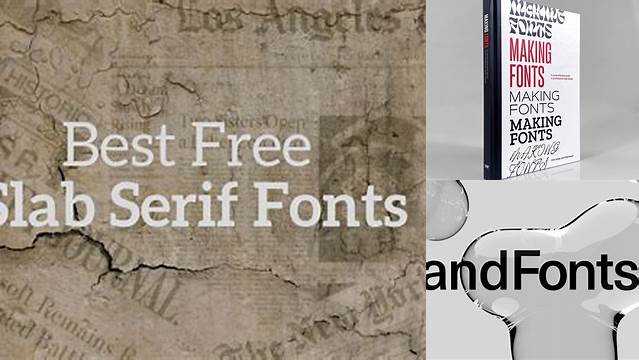
Free Fonts: Impact, Benefits, And How To Use Them
Introduction: Diving into the World of Free Fonts
Hey guys! Let's talk about something super cool and essential for all designers, content creators, and anyone who loves making things look awesome: free fonts. You know, those little gems you can snag without spending a dime? They're everywhere, and they have a massive impact on how we communicate visually. Fonts are more than just letters; they're the voice of your text, the personality of your brand, and the first impression you make on your audience. Choosing the right font can be the difference between a message that sings and one that falls flat. So, buckle up as we dive into the wonderful world of free fonts and explore how they're shaping the way we design and communicate. This article is going to be your ultimate guide, covering everything from the benefits and potential pitfalls of using free fonts to tips on finding the best ones and how to use them effectively. We’ll also touch on the legal side of things, ensuring you're not stepping on any toes when you use that killer free font you just discovered. Whether you're a seasoned pro or just starting out, understanding the impact of free fonts is crucial. We're going to break it all down in a way that's super easy to grasp, so you can start making the most of these fantastic resources today. Think of fonts as the clothes your words wear. A sharp, modern font can make your text look cutting-edge and professional, while a playful, whimsical font can add a touch of fun and creativity. The key is to match the font to the message and the audience. Free fonts open up a world of possibilities, allowing you to experiment with different styles and find the perfect fit for your project without breaking the bank.
The Allure of Free Fonts: Why They Matter
So, why are free fonts such a big deal? Let's be real, the most obvious reason is the price tag – or rather, the lack of one! For those just starting out, small businesses on a budget, or even seasoned designers looking to expand their toolkit, free fonts are a godsend. They allow you to access a vast library of typefaces without the financial commitment of purchasing commercial fonts. But the allure of free fonts goes beyond just the cost. They democratize design, making it possible for anyone to create visually appealing content. You don't need a huge budget to have access to a diverse range of fonts that can elevate your projects. This accessibility is particularly important for students, non-profits, and individuals who may not have the resources to invest in expensive fonts. Free fonts also foster creativity and experimentation. With a plethora of options available at no cost, you can afford to try out different styles and see what works best for your project. This can lead to unexpected discoveries and help you develop your unique design aesthetic. Moreover, the availability of free fonts has spurred a vibrant community of type designers and enthusiasts. Many talented designers generously share their creations for free, contributing to a rich and ever-growing collection of typefaces. This collaborative spirit benefits everyone, as it drives innovation and expands the possibilities of typography. However, it's important to remember that not all free fonts are created equal. While there are many high-quality free fonts available, there are also some that may be poorly designed or lack essential features. That's why it's crucial to be discerning and selective when choosing free fonts. We'll delve into how to evaluate the quality of free fonts later in this article, so you can be sure you're using the best possible typefaces for your projects.
Benefits of Using Free Fonts
Let's get into the nitty-gritty of why free fonts are such a fantastic resource. The benefits of using free fonts are numerous, and they impact everything from your budget to your creativity. One of the most significant advantages is, of course, the cost savings. Starting a new project or running a business involves a lot of expenses, and being able to save money on fonts can make a real difference. Free fonts allow you to allocate your resources to other crucial aspects of your work, such as marketing, development, or content creation. This is especially beneficial for startups and small businesses that need to be mindful of their spending.
Cost Savings and Budget-Friendly Design
Speaking of budget-friendly design, let's break down how much you can save by opting for free fonts. Commercial fonts can range from a few dollars to hundreds, depending on the typeface and licensing terms. If you're working on multiple projects or need a diverse range of fonts, the costs can quickly add up. Free fonts eliminate this financial barrier, allowing you to experiment with different styles without worrying about the price tag. Imagine you're designing a website, creating social media graphics, and putting together a marketing brochure. If you were to purchase commercial fonts for each of these projects, you could easily spend hundreds of dollars. With free fonts, you can achieve the same professional look without spending a dime. This cost savings can be particularly impactful for freelancers and independent designers who often work with limited budgets. By using free fonts strategically, you can maximize your profits and offer competitive pricing to your clients. But the cost savings aren't just about the money you save upfront. Using free fonts can also reduce your long-term expenses. Commercial font licenses often have restrictions on usage, such as the number of users or the types of projects you can use the font for. If you exceed these limits, you may need to purchase additional licenses, which can be costly. Free fonts, on the other hand, often come with more flexible licensing terms, allowing you to use them for a wider range of projects without incurring extra fees. This can provide significant peace of mind and save you from potential legal headaches down the road. In addition to the direct cost savings, using free fonts can also help you develop your design skills. By experimenting with different typefaces and seeing how they impact your designs, you can gain a better understanding of typography and learn how to choose the right font for each project. This knowledge is invaluable and can help you create more effective and visually appealing designs in the long run.
Variety and Accessibility: A World of Options at Your Fingertips
Beyond the financial benefits, variety and accessibility are major perks of the free font world. The sheer number of free fonts available is staggering, offering a typeface for virtually every style and purpose. Whether you're looking for a classic serif for a formal document, a modern sans-serif for a website, or a playful script for a creative project, you're likely to find a free font that fits the bill. This vast selection allows you to explore different typographic styles and find the perfect font to convey your message. One of the beautiful things about this variety is that it allows designers to really express the unique personality and tone of their projects. Imagine you're designing a logo for a children's brand. A playful, whimsical font would be far more suitable than a serious, formal one. With free fonts, you have access to a wide range of fun and quirky typefaces that can capture the essence of your brand. Or, perhaps you're creating a website for a luxury brand. In this case, you might opt for a sleek, elegant sans-serif font that conveys sophistication and class. The variety of free fonts ensures that you can find the perfect typeface to match your brand's identity and target audience. Another advantage of the accessibility of free fonts is that they make it easier to collaborate with others. If you're working on a project with a team, using free fonts ensures that everyone can access and use the same typefaces without having to purchase individual licenses. This simplifies the design process and prevents compatibility issues. Furthermore, the accessibility of free fonts empowers individuals and organizations with limited resources. Non-profits, community groups, and individuals starting their own projects can benefit greatly from the availability of free typefaces. It levels the playing field, allowing them to create professional-looking materials without breaking the bank. The accessibility of free fonts also promotes inclusivity in design. By providing a wide range of options, free fonts allow designers to cater to diverse audiences and create designs that are accessible to everyone. This is particularly important for projects that need to be translated into multiple languages, as free fonts often include a wider range of characters and glyphs than commercial fonts.
Fostering Creativity and Experimentation
Let's not forget how free fonts can really boost your creative juices! With so many options available at no cost, you're free to experiment with different styles and see what sparks your imagination. It's like having a giant box of art supplies without the pressure of using them perfectly. This freedom can lead to some truly amazing design discoveries. When you're not worried about the cost of a font, you're more likely to take risks and try something new. Maybe you'll combine a bold, modern sans-serif with a delicate script font for a striking contrast. Or perhaps you'll use a vintage-inspired typeface to add a touch of nostalgia to your project. The possibilities are endless. Experimentation is key to growth as a designer. By trying out different fonts, you'll develop a better understanding of typography and learn how to create visually compelling designs. You'll also discover your own personal style and preferences, which will help you stand out from the crowd. Free fonts also encourage you to think outside the box. When you're not limited by a small selection of fonts, you're more likely to explore unconventional typefaces and find unique ways to use them. This can lead to innovative designs that capture attention and leave a lasting impression. Think about it: if you had to pay for every font you tried, you might stick with the same old reliable typefaces you're comfortable with. But with free fonts, you can venture into uncharted territory and discover hidden gems that you might never have considered otherwise. This sense of adventure is essential for creativity and can help you push the boundaries of your design work. Moreover, free fonts can be a great source of inspiration. Browsing through different free font websites and collections can expose you to new styles and trends. You might stumble upon a typeface that perfectly captures the mood you're trying to create, or you might find a font that inspires a whole new design concept. The constant influx of new free fonts keeps things fresh and exciting, ensuring that your creativity never stagnates.
Potential Pitfalls and How to Avoid Them
Now, let's be real – while free fonts are fantastic, they're not without their potential pitfalls. It's like anything else in life; you've got to know the downsides to make the most of the upsides. We're going to talk about some of the common issues you might encounter when using free fonts and, more importantly, how to steer clear of them. Think of this as your guide to navigating the free font landscape safely and effectively. One of the biggest concerns is font quality. Not all free fonts are created equal, and some may be poorly designed or lack essential features. This can lead to problems with readability, rendering issues, and an overall unprofessional look. Another potential pitfall is licensing restrictions. While free fonts are free to download and use, they may come with specific terms and conditions that you need to be aware of. Using a font in a way that violates its license can lead to legal trouble, so it's crucial to understand the licensing terms before you start using a free font. We'll also discuss the issue of overused fonts. Some free fonts are so popular that they're used everywhere, which can make your designs look generic and uninspired. Finding unique and high-quality free fonts requires a bit of effort, but it's well worth it to create designs that stand out. So, let's dive into these potential pitfalls and learn how to avoid them, ensuring that you can use free fonts with confidence and create amazing designs.
Quality Concerns: Evaluating Free Fonts
When diving into the world of free fonts, one of the first things you need to consider is quality. Not every font that's free is a good font, guys. Some might have design flaws, rendering issues, or just look plain amateurish. It's super important to be discerning and evaluate a font carefully before you use it in your project. Think of it like this: you wouldn't wear a ripped or stained shirt to a job interview, right? Similarly, you don't want to use a poorly designed font that could undermine the professionalism of your work. So, how do you evaluate the quality of a free font? Let's break it down. First, check for consistency. Are the letterforms well-balanced and harmonious? Do the uppercase and lowercase letters complement each other? Are the spacing and kerning (the space between letters) consistent throughout the font? Inconsistencies can make a font look jarring and unprofessional. Next, consider readability. Is the font easy to read in different sizes and contexts? A font might look great in a large headline, but it could become illegible in body text. Test the font in various sizes and weights to make sure it's readable. Another important factor is completeness. Does the font include all the characters you need, such as punctuation marks, symbols, and accented characters? If you're working on a project that requires specific characters, make sure the font supports them. You should also look for technical issues. Does the font render properly on different devices and browsers? Are there any glitches or distortions when you use the font in different software programs? Technical issues can be frustrating and time-consuming to fix, so it's best to avoid fonts that have them. Finally, trust your gut. Does the font look and feel right for your project? Does it convey the message and tone you're trying to achieve? If a font doesn't feel like a good fit, it probably isn't. Evaluating the quality of free fonts takes time and effort, but it's an essential step in the design process. By being selective and choosing high-quality typefaces, you can create professional-looking designs that stand out from the crowd.
Licensing and Usage Rights: Understanding the Fine Print
Okay, guys, let's talk about something that might seem a little dry but is super important: licensing and usage rights for free fonts. It's like the fine print you usually skip over, but trust me, you need to pay attention here. Using a font without understanding its license can land you in hot water, and nobody wants that. So, what's the deal with font licenses? Basically, a font license is a legal agreement that outlines how you can use a particular font. It specifies things like whether you can use the font for commercial purposes, whether you can embed it in a website or app, and whether you can modify it. Free fonts, like commercial fonts, come with licenses, and these licenses can vary widely. Some free fonts have very permissive licenses that allow you to use them for just about anything, while others have more restrictive terms. It's crucial to read the license agreement carefully before you start using a free font. Where do you find the license agreement? It's usually included in a text file or PDF document that comes with the font files. If you downloaded the font from a reputable website, the license information should be readily available. If you can't find the license agreement, it's best to err on the side of caution and contact the font designer or the website where you downloaded the font to ask for clarification. So, what are some common types of font licenses you might encounter? One common type is the Open Font License (OFL), which is a very permissive license that allows you to use the font for commercial and non-commercial purposes, modify it, and even redistribute it. However, the OFL usually requires you to include the original copyright notice and license agreement with the font files. Another type of license is the Creative Commons license, which comes in several variations. Some Creative Commons licenses allow commercial use, while others are limited to non-commercial purposes. It's important to check the specific terms of the Creative Commons license before using a font. Some free fonts may have custom licenses created by the font designer. These licenses can have a wide range of restrictions, so it's essential to read them carefully. For example, a custom license might prohibit you from using the font in certain types of projects, such as logos or branding materials. To avoid any legal issues, always read and understand the license agreement for every free font you use. If you're unsure about something, don't hesitate to ask for clarification. It's better to be safe than sorry.
Overused Fonts: Standing Out from the Crowd
Alright, let's talk about a sneaky little pitfall that can make your designs feel a bit…meh. We're talking about overused fonts. You know, those free fonts that are so popular they're practically everywhere? Using them isn't necessarily bad, but it can make your work blend in rather than stand out. Think of it like wearing the same outfit as everyone else at a party – you might look nice, but you won't exactly turn heads. So, how do you avoid the overused font trap and keep your designs fresh and unique? First, let's acknowledge why some fonts become so popular. Often, it's because they're well-designed, versatile, and easy to read. But their very popularity can be their downfall. When a font is used on countless websites, logos, and marketing materials, it starts to lose its impact. It becomes familiar, even invisible, to the viewer. So, what's the solution? The key is to dig a little deeper and explore the less-traveled corners of the free font world. There are tons of amazing free fonts out there that haven't been discovered by the masses yet. Finding these hidden gems can give your designs a unique edge. One way to find less common fonts is to browse niche font websites and foundries. Instead of sticking to the big, well-known free font sites, venture out to smaller sites that specialize in specific styles or genres of fonts. You might discover a quirky hand-drawn font, a retro-inspired typeface, or a bold display font that you won't find anywhere else. Another strategy is to look for fonts created by independent designers. Many talented designers offer their fonts for free as a way to showcase their work and build their portfolio. By using these fonts, you're not only getting a unique typeface, but you're also supporting independent artists. You can find independent font designers on platforms like Behance, Dribbble, and Creative Market. When you find a font you like, take the time to experiment with it. Try using it in different sizes, weights, and contexts to see how it performs. You might discover unexpected ways to use a font that make it feel fresh and original. And don't be afraid to combine different fonts. Pairing an overused font with a less common one can create a unique and eye-catching look. Just make sure the fonts complement each other and work well together. Finally, trust your instincts. If a font feels overused to you, it probably is. Choose a different font that feels more unique and aligns with your design goals. Standing out from the crowd requires effort and a willingness to explore, but it's well worth it to create designs that are memorable and impactful.
Finding the Best Free Fonts: Resources and Tips
Okay, so we've talked about the benefits and the potential pitfalls, but now comes the fun part: finding the best free fonts! It's like going on a treasure hunt, but instead of gold, you're searching for typographic gold. There are so many amazing free fonts out there just waiting to be discovered, and we're going to give you the tools and tips you need to find them. We'll explore some fantastic resources for free fonts, from well-known websites to hidden gems, and we'll also share some pro tips for evaluating fonts and making sure they're a good fit for your project. Think of this section as your map and compass for navigating the free font landscape. We'll help you avoid the dead ends and lead you to the best typographic treasures. Whether you're looking for a classic serif, a modern sans-serif, or a quirky display font, we've got you covered. So, let's dive in and start the hunt for the perfect free fonts! Remember, the best font is the one that perfectly captures the tone and message of your project, so it's worth taking the time to find the right fit. We'll help you develop your eye for typography and learn how to choose fonts that will make your designs shine. Get ready to expand your font library and unleash your creative potential!
Top Resources for Free Fonts
Let's start by uncovering some of the top resources for free fonts. The internet is a vast ocean of typefaces, but knowing where to look can save you a ton of time and effort. We're going to highlight some of the best websites and platforms for finding high-quality free fonts, so you can build your font library with confidence. Think of these resources as your go-to spots for all things typography. First up, we have the Google Fonts library. This is a massive collection of open-source fonts that are free to use for commercial and non-commercial purposes. Google Fonts is a fantastic resource for web fonts, as they're designed to render beautifully on screens. Plus, they're super easy to embed on your website using Google's free font API. With hundreds of fonts to choose from, you're sure to find something that fits your project. Another great resource is Font Squirrel. This website curates a selection of free fonts that are licensed for commercial use. Font Squirrel is known for its high-quality fonts and its easy-to-use interface. You can browse fonts by category, style, or designer, and you can even test fonts out in your browser before you download them. If you're looking for a more curated selection of free fonts, check out MyFonts Free Fonts. MyFonts is a popular marketplace for commercial fonts, but they also offer a selection of free fonts that are updated regularly. These free fonts are often promotional offerings from foundries, so you can find some real gems here. For a more artistic and experimental selection of free fonts, head over to Behance and Dribbble. These platforms are home to a vibrant community of designers who often share their fonts for free. You can find some truly unique and creative typefaces on these sites, but be sure to check the licensing terms before you use them. Another often-overlooked resource is individual font foundries. Many independent type designers and foundries offer free fonts as a way to promote their work. Check out the websites of your favorite foundries to see if they have any free offerings. Finally, don't forget about design bundles and freebie websites. These sites often offer free fonts as part of larger design packages or as limited-time promotions. Keep an eye out for these deals, as they can be a great way to expand your font library. With so many resources available, finding the perfect free font for your project is easier than ever. Just remember to check the licensing terms and evaluate the quality of the font before you use it.
Tips for Choosing the Right Free Font
Now that you know where to find free fonts, let's talk about how to choose the right free font for your project. With so many options available, it can be overwhelming to narrow down your choices. But don't worry, we've got some tips to help you make the best decision. Think of this as your font-selection cheat sheet. First and foremost, consider your project's purpose and tone. What message are you trying to convey? What kind of feeling do you want to evoke? The font you choose should align with these goals. A formal project might call for a classic serif font, while a playful project might benefit from a whimsical script font. If you're designing a logo or branding materials, think about your brand's identity. Your font should reflect your brand's personality and values. A modern, tech-focused brand might choose a sleek sans-serif font, while a traditional brand might opt for a more ornate serif font. Readability is crucial, especially for body text. Choose a font that is easy to read in different sizes and contexts. Avoid fonts with overly decorative or complex letterforms, as they can be difficult to read. Consider the context in which your font will be used. Will it be used on a website, in print, or in a mobile app? Some fonts are better suited for certain mediums than others. For example, a font that looks great in print might not render well on a screen. Pay attention to kerning and spacing. The space between letters can have a big impact on readability. Make sure the font you choose has consistent and well-balanced kerning and spacing. Don't be afraid to experiment. Try out different fonts and see what works best for your project. You might be surprised at what you discover. Limit your font choices. Using too many different fonts in a single project can create a cluttered and unprofessional look. Stick to two or three fonts that complement each other. Test your fonts. Before you finalize your font choices, test them out in your design. See how they look in different sizes, weights, and colors. Get feedback from others and make sure the fonts are working well for your project. Finally, trust your gut. If a font feels right, it probably is. Choose fonts that you love and that inspire you. By following these tips, you can choose the perfect free fonts for your project and create designs that are both beautiful and effective.
Legal Considerations: Font Licensing and Usage Rights
Alright, let's dive into the legal considerations when using free fonts. This might not be the most exciting topic, but it's super important to understand the rules of the road when it comes to font licensing and usage rights. Think of this as the legal 101 of fonts – essential knowledge for any designer or content creator. We've touched on this briefly before, but let's really break it down so you can avoid any potential legal headaches. Font licenses are basically contracts that outline how you can use a particular font. They specify things like whether you can use the font for commercial projects, whether you can embed it in a website or app, and whether you can modify it. Ignoring these licenses can lead to copyright infringement, which can be a costly and time-consuming problem. So, how do you make sure you're using free fonts legally? The first step is to always read the license agreement that comes with the font. This document will spell out the specific terms and conditions of use. If you can't find a license agreement, it's best to err on the side of caution and avoid using the font. Free fonts can come with a variety of licenses, ranging from very permissive to quite restrictive. Some common types of licenses you might encounter include the Open Font License (OFL), Creative Commons licenses, and custom licenses created by the font designer. The Open Font License (OFL) is a popular choice for free fonts because it's very permissive. It allows you to use the font for commercial and non-commercial purposes, modify it, and even redistribute it, as long as you include the original copyright notice and license agreement. Creative Commons licenses come in several different flavors, some of which allow commercial use and some of which don't. It's crucial to check the specific terms of the Creative Commons license before using a font. Custom licenses can vary widely, so it's essential to read them carefully. Some custom licenses might restrict how you can use the font, such as prohibiting its use in logos or branding materials. When in doubt, ask for clarification. If you're unsure about the terms of a font license, contact the font designer or the website where you downloaded the font. They can provide guidance and help you avoid any potential legal issues. Remember, it's always better to be safe than sorry when it comes to font licensing. By understanding the rules and following them carefully, you can use free fonts with confidence and create amazing designs without worrying about legal repercussions.
Conclusion: Embracing the World of Free Fonts Responsibly
Alright, guys, we've reached the end of our deep dive into the impact of free fonts! We've covered a lot of ground, from the incredible benefits of using free fonts to the potential pitfalls and how to avoid them. We've explored top resources for finding free fonts and shared tips for choosing the right ones for your projects. And, perhaps most importantly, we've delved into the legal considerations surrounding font licensing and usage rights. So, what's the big takeaway? Free fonts are an amazing resource, plain and simple. They empower designers, content creators, and businesses of all sizes to create visually stunning materials without breaking the bank. They foster creativity, experimentation, and collaboration. They democratize design, making it accessible to everyone. But, like any powerful tool, free fonts must be used responsibly. That means taking the time to evaluate font quality, understand licensing terms, and avoid overused fonts. It means being mindful of the legal implications of font usage and taking steps to protect yourself from potential copyright infringement. By embracing free fonts responsibly, you can unlock their full potential and create designs that are both beautiful and effective. So, go forth and explore the vast world of free typography! Discover new fonts, experiment with different styles, and let your creativity shine. With the knowledge and tools you've gained in this article, you're well-equipped to navigate the free font landscape and make the most of these fantastic resources. Remember, the best font is the one that perfectly captures the tone and message of your project. So, take your time, choose wisely, and create designs that stand out from the crowd. The world of free fonts is waiting to be explored, and we can't wait to see what you create! Happy designing!